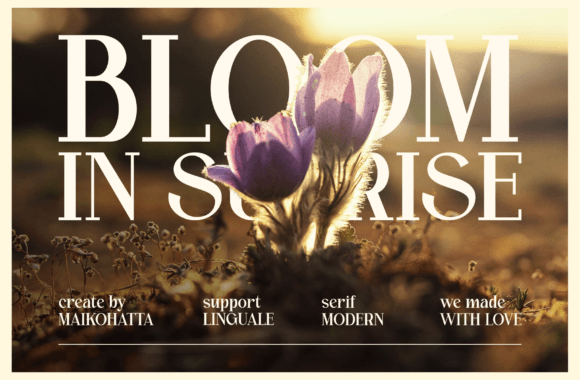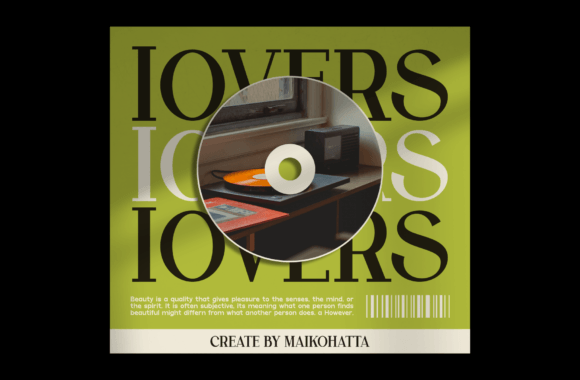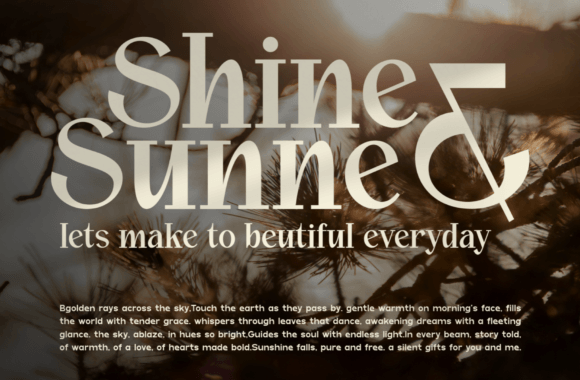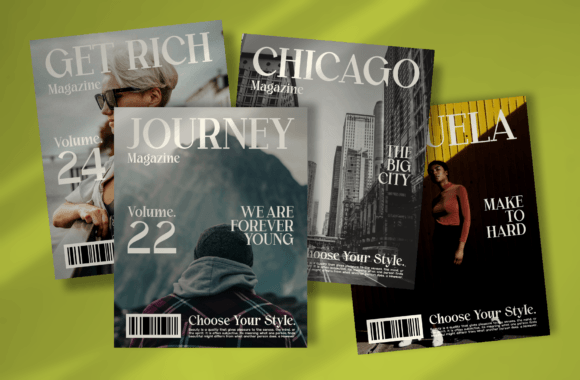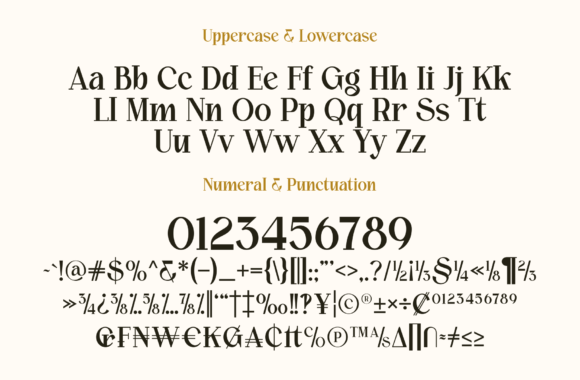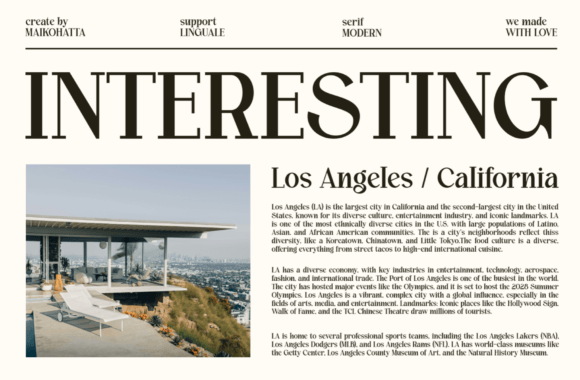
Introducing Calvine: The Modern Serif Typeface Redefining Elegance and Readability
In the ever-evolving world of typography, the quest for the perfect balance between style and readability is a continuous pursuit. For designers, crafters, and typography enthusiasts, finding a font that combines elegance with legibility is a treasure. This is where Calvine, our new modern serif typeface, comes into play. Calvine is not just a font; it’s an experience that marries the classic appeal of serif typography with the sophistication of modern design.
The Essence of Calvine: A Modern Serif Typeface
Calvine is characterized by its balanced proportion of stroke thickness and fineness, creating visuals that are not only attractive but also effortlessly readable. This modern serif style is often marked by a bold distinction between thick and thin lines, a feature that provides a touch of understated elegance while ensuring the font stands out in any context.
At the heart of Calvine’s design is the aim to bridge the gap between traditional typography and contemporary aesthetics. The font’s serifs are carefully crafted to add a touch of sophistication and refinement, making it an ideal choice for projects that demand a high level of elegance and poise.
Key Features of Calvine
- Balanced Stroke Thickness: Calvine boasts a meticulously balanced stroke thickness, ensuring that each character is clear and legible, whether used in headings or body text.
- Distinctive Serif Style: The modern serif style of Calvine, with its pronounced contrast between thick and thin lines, adds a dynamic flair to any design, setting it apart from more traditional serif fonts.
- Elegance and Readability: The design of Calvine prioritizes both elegance and readability, making it a versatile font suitable for a wide range of applications, from luxury branding to digital content creation.
Applications of Calvine
Calvine’s versatility is one of its most compelling attributes. This font can elevate a variety of design projects, including:
- Branding and Logo Design: The unique blend of modernity and tradition in Calvine makes it an excellent choice for brands looking to establish a sophisticated and memorable identity.
- Digital Content: For websites, blogs, and digital magazines, Calvine offers a refined look that enhances readability and user experience.
- Print Materials: From high-end brochures and magazines to elegant stationery, Calvine brings a level of sophistication that is hard to achieve with more common fonts.
Why Choose Calvine?
In a sea of typefaces, Calvine stands out for several reasons:
- Unique Aesthetic: Calvine offers a fresh take on serif typography, providing designers with a unique aesthetic that can help their work stand out.
- High Readability: Despite its elegant design, Calvine does not compromise on readability, making it suitable for both digital and print media.
- Versatility: Whether you’re working on a luxury brand project or a digital platform, Calvine adapts seamlessly, offering a consistent and reliable design element.
Calvine is more than just a modern serif typeface; it’s a tool for designers and crafters to imbue their projects with elegance, sophistication, and readability. With its balanced design, distinctive features, and versatile applications, Calvine is poised to become a go-to font for those looking to elevate their typography. Whether you’re creating a brand identity, crafting digital content, or designing print materials, Calvine offers the perfect blend of style and substance to make your work shine.
Experience the elegance of Calvine for yourself and discover how this modern serif typeface can transform your designs.